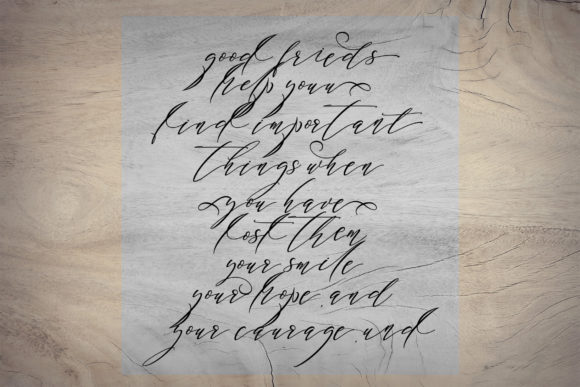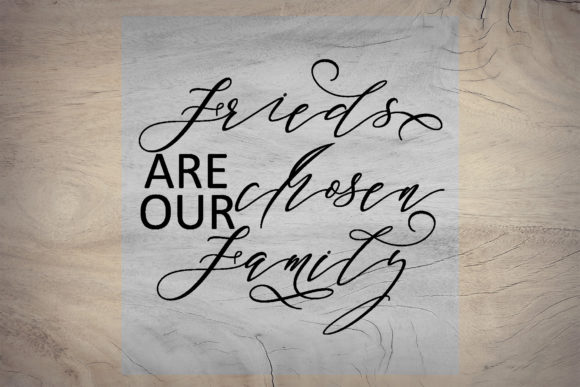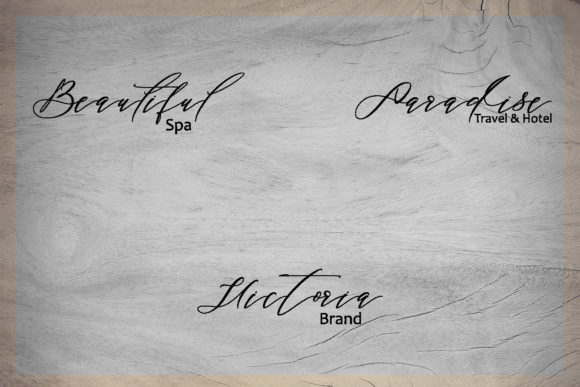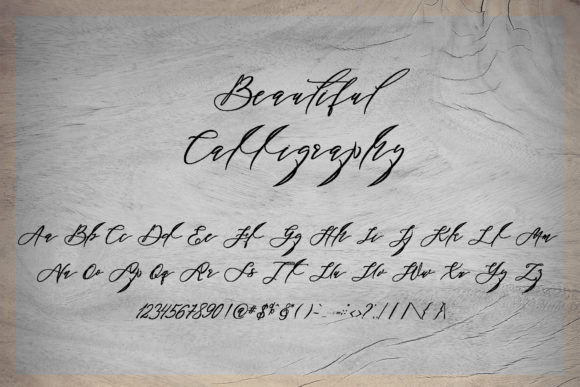
About Black Thise Font
Black Thise is modern script font. Every single letter has been carefully crafted to make your text looks beautiful. With a modern script style this font will be perfect for many different projects such as invitations, greeting cards, posters, name cards, quotes, blog headers, branding, logos, fashion, apparel, letters and more !